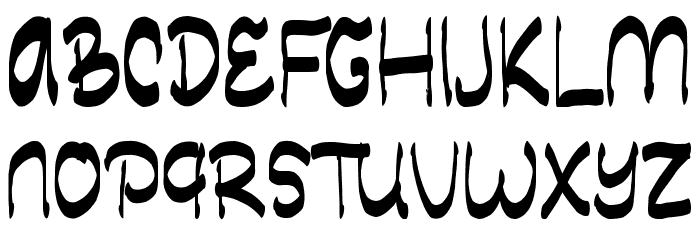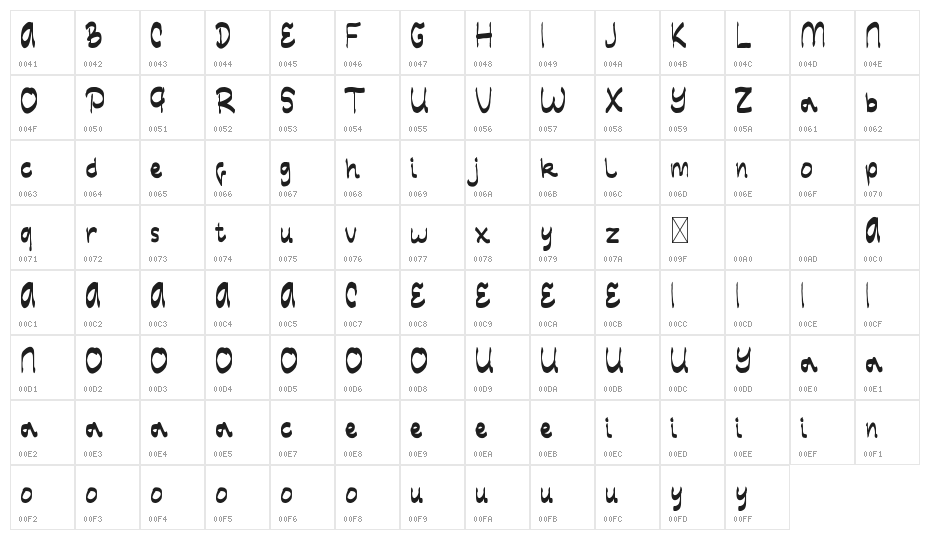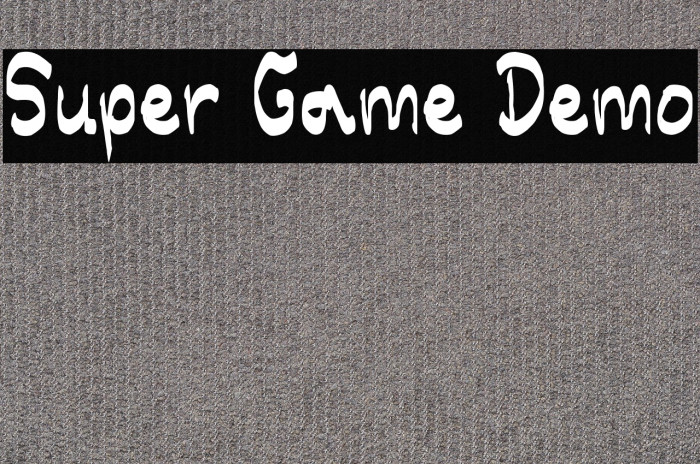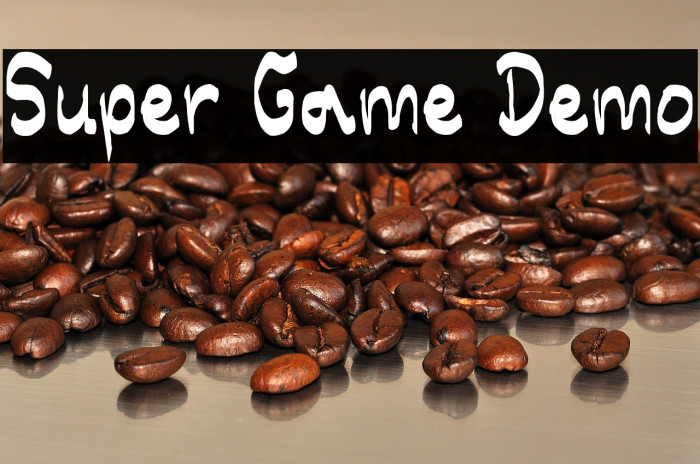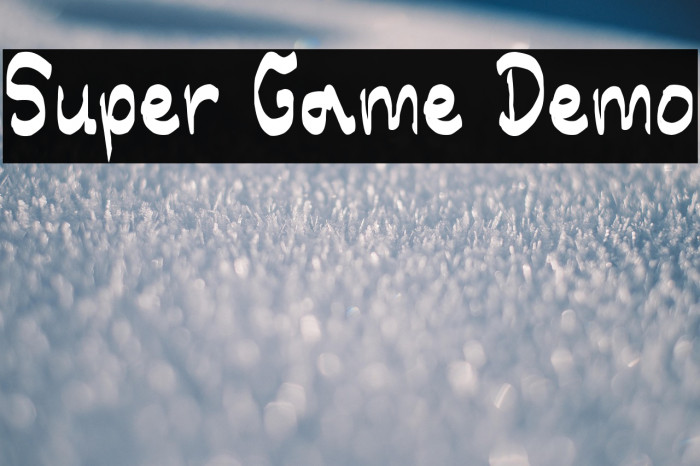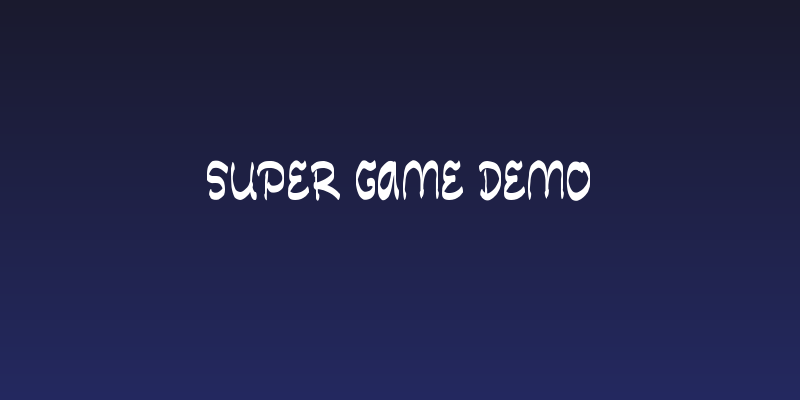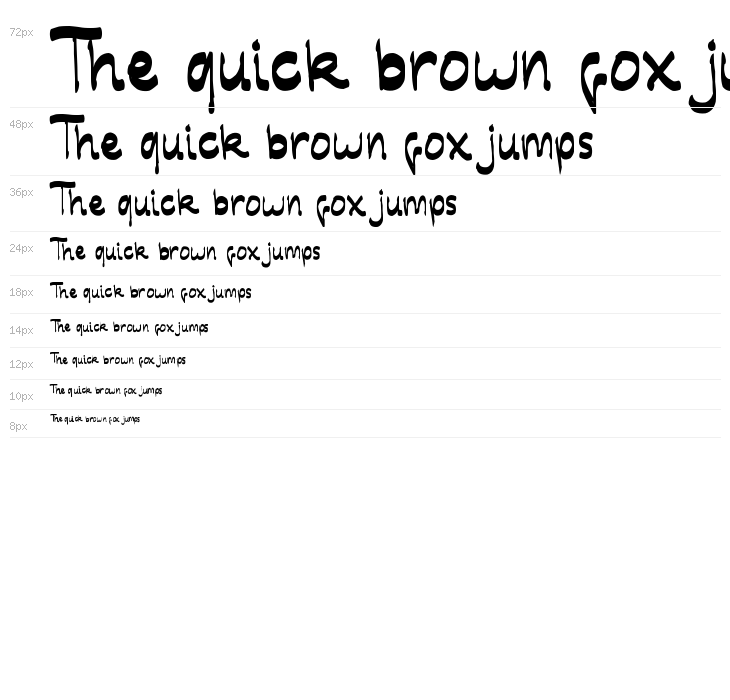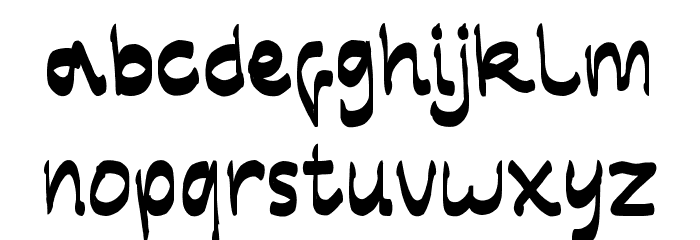
Super Game Demo Font
Super Game Demo Description
This font features a playful and dynamic style, characterized by its bold and irregular strokes that give it a hand-drawn appearance. The letters have a whimsical, almost cartoonish quality, with varying stroke thickness that adds to its lively and energetic feel. The uppercase and lowercase letters maintain a consistent style, with some letters exhibiting unique flourishes and curves. The numbers and special characters follow the same design principles, ensuring a cohesive look across all glyphs. This font's distinctive style makes it stand out, perfect for projects that require a fun and engaging visual element.